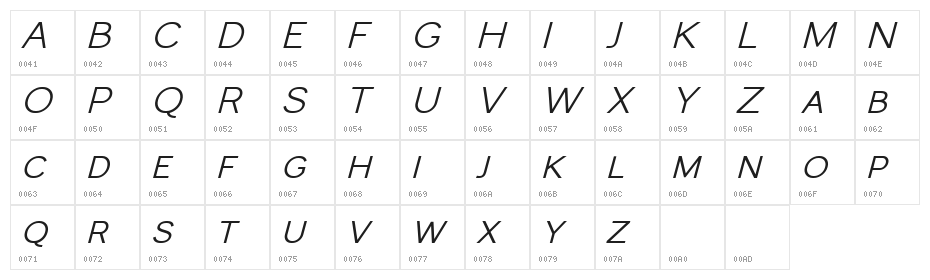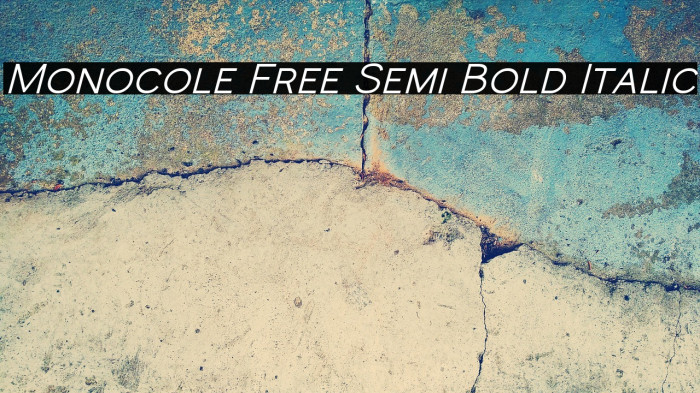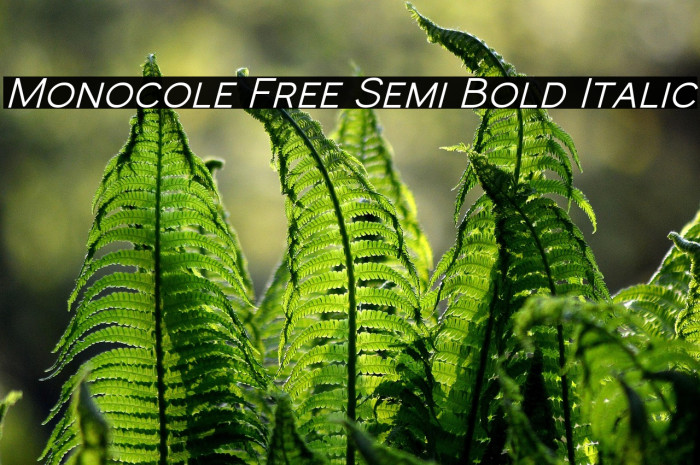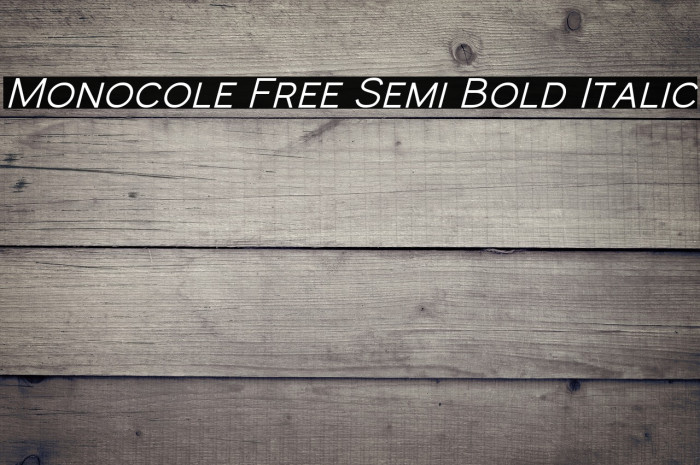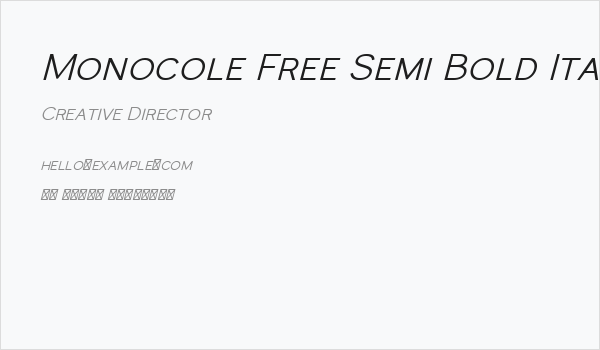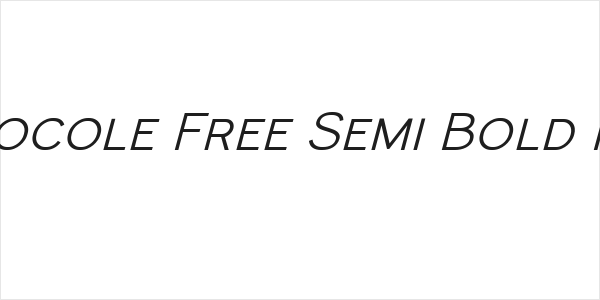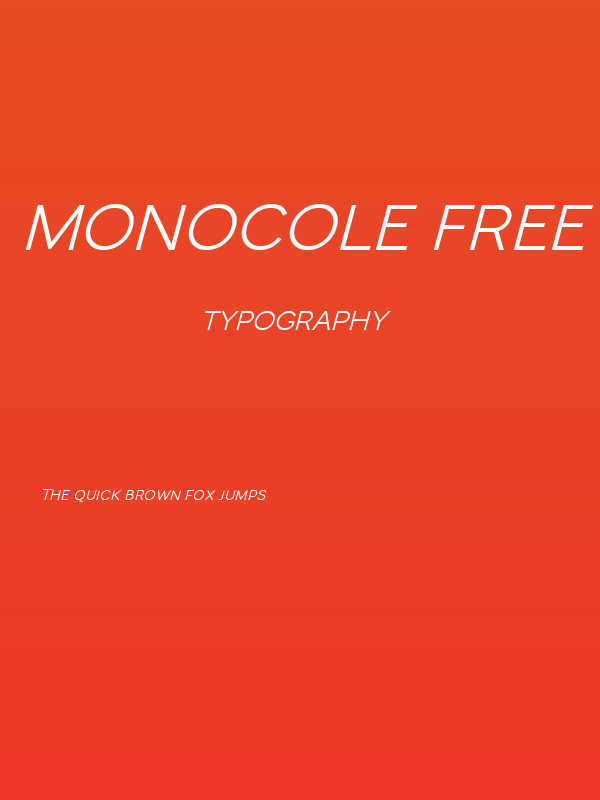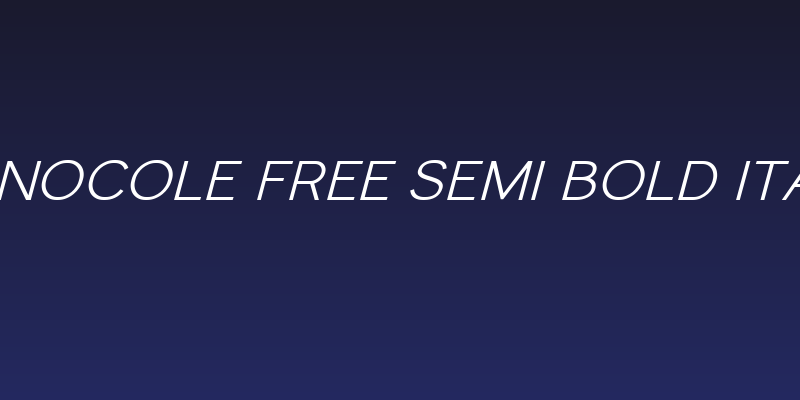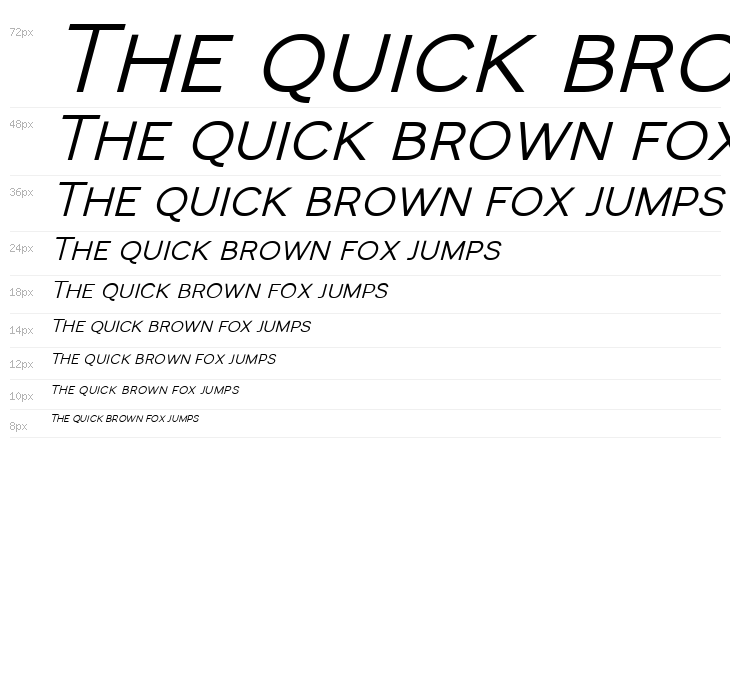
Monocole Free Semi Bold Italic Font
Monocole Free Semi Bold Italic Description
This font features a sleek and modern design with a semi-bold weight and italic style. The characters are slightly slanted, giving a dynamic and forward-moving appearance. The strokes are consistent and smooth, with a moderate contrast that enhances readability while maintaining a stylish look. The font's clean lines and contemporary feel make it versatile for various design applications. It is well-suited for projects that require a touch of elegance and sophistication, such as branding, advertising, and editorial design.
| Proposed Projects | Ideal for branding, advertising, editorial design, and any project requiring a modern, elegant touch. |